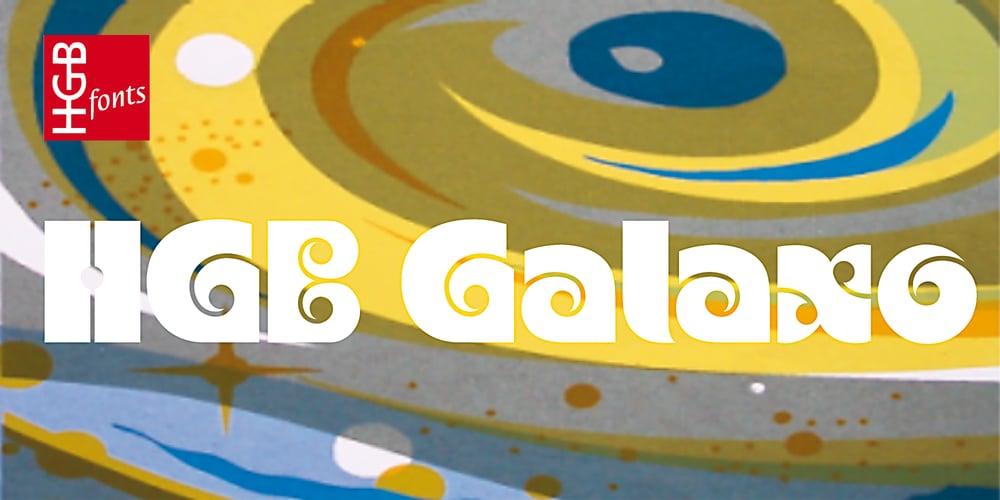
HGBGalaxo Dot Font Family was designed by Hellmut G. Bomm and published by HGB fonts. HGBGalaxo Dot contains 1 styles and family package options. Galaxo Dot is a sister to Galaxo Line. HGB Galaxo is a tribute to Othmar Motter (1927–2010), the Vorarlberg graphic artist and typeface designer, who designed very individual and perfectly crafted typefaces in the 1970’s and later. (Motter Ombra, Motter Tectura …) From a Motter sketch of 5 letters for a logogram, I derived a simplified letterform and developed all the necessary characters. Working on these glyphs and delving deeper into Motter’s letterforms, the respect for the accuracy with which he drew his letters (in ink) grew more and more. The spiral resembles the shape of a galaxy, hence the name Galaxo. The font is suitable for retro, poster and logo design.